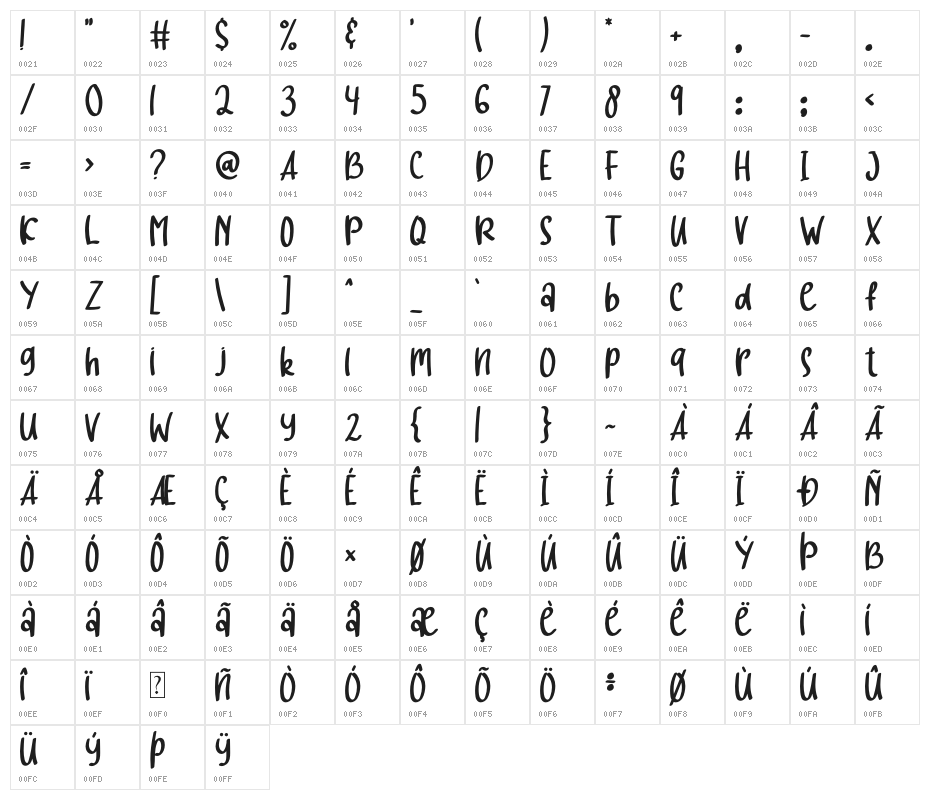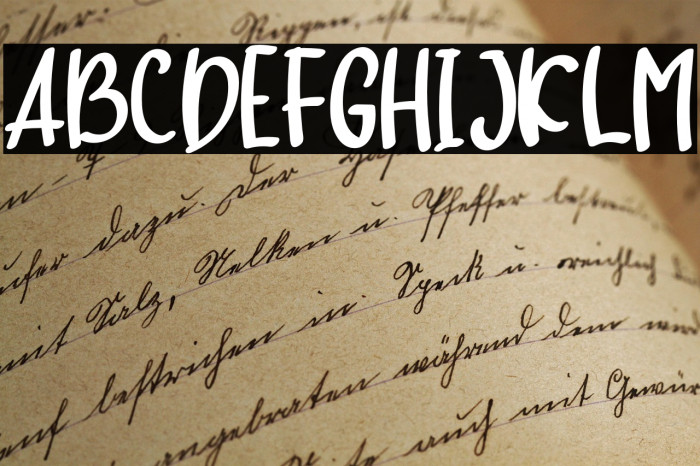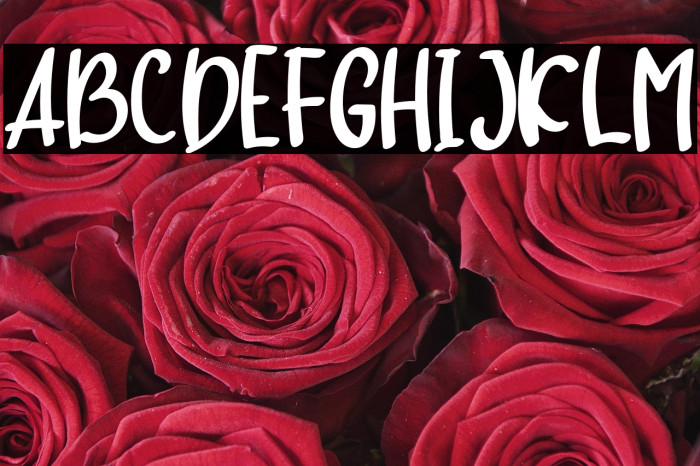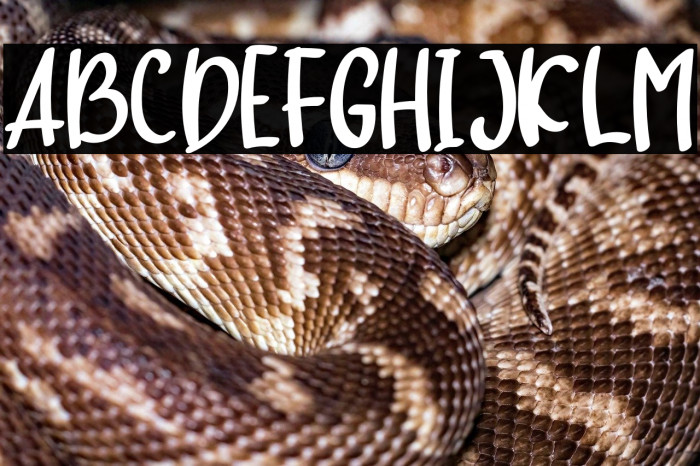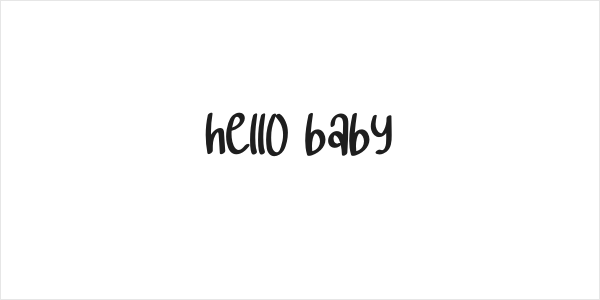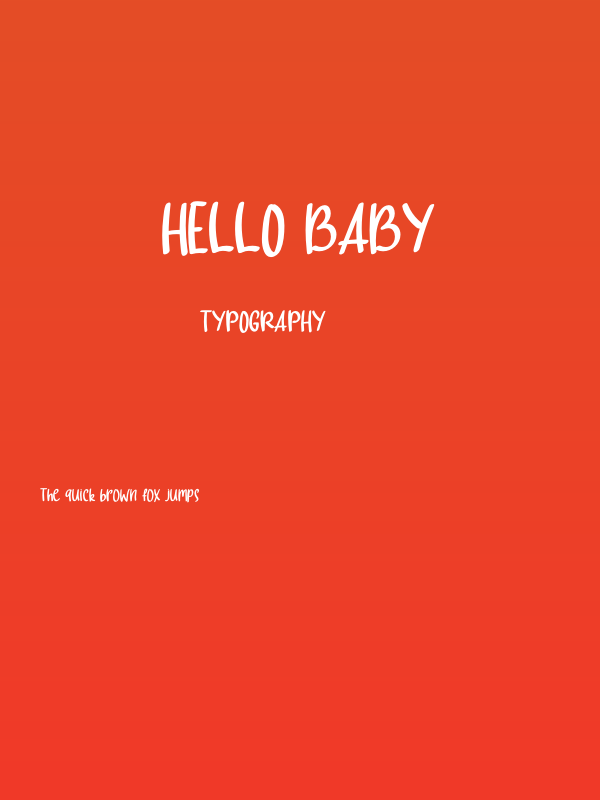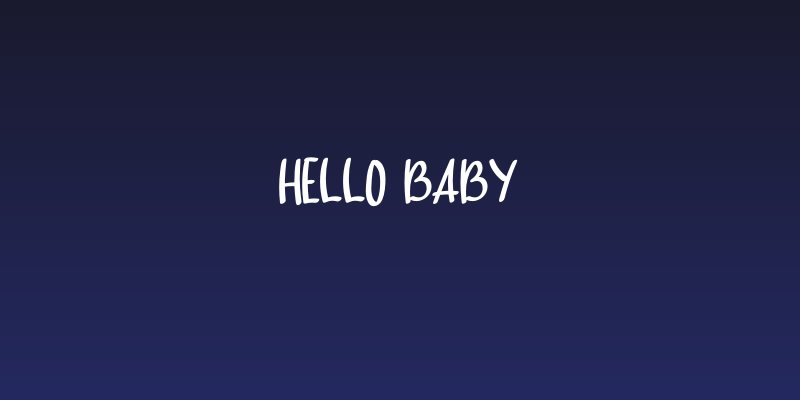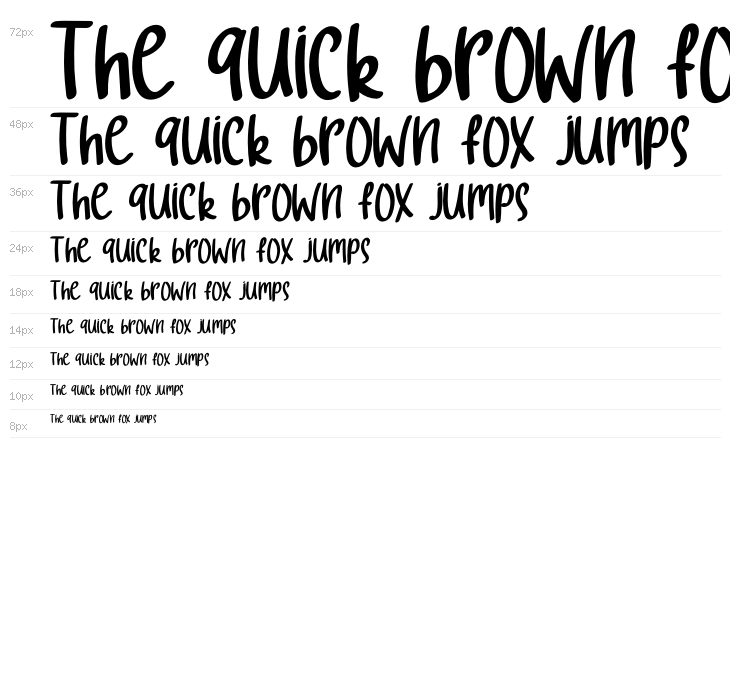
hello baby Font
hello baby Description
This playful and whimsical font features a handwritten style with bold, rounded strokes that convey a sense of fun and creativity. The letters are slightly slanted, giving them a dynamic and lively appearance. The uppercase and lowercase characters maintain a consistent style, with smooth curves and a casual flair. The numbers and special characters are equally expressive, making this font versatile for various design needs. Its informal and friendly look makes it ideal for projects that aim to capture a youthful and energetic vibe.
| Proposed Projects | Ideal for children's books, greeting cards, playful branding, and social media graphics. |